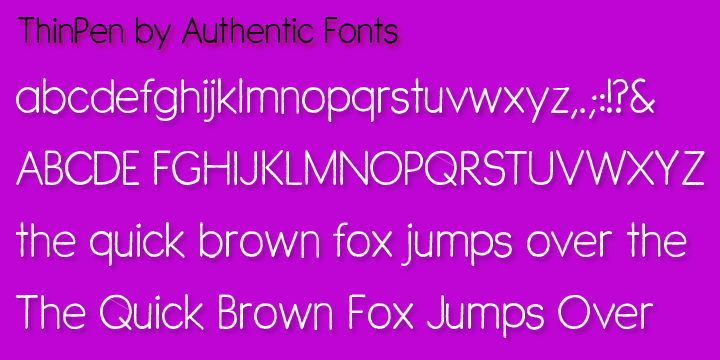
ThinPen Font is perfect for minimalist branding, elegant handwritten notes, delicate stationery designs, sophisticated journal layouts, refined signature logos, artistic sketching projects, intimate wedding invitations, and graceful calligraphy applications.
This font is exciting because it captures the delicate precision of fine pen strokes with graceful minimalism and artistic sophistication. ThinPen Font features ultra-thin letterforms with elegant line weight that evoke the intimacy of personal handwriting, making it ideal for projects that require subtle refinement and authentic handcrafted appeal.
The ThinPen Font family includes regular, italic, condensed, and ultra-light variants, along with delicate alternates and flowing ligatures that enhance its refined character. Each weight maintains the font's graceful aesthetic while providing different levels of delicate expression for various artistic and minimalist design applications.
Whether you're developing sophisticated personal brands, creating elegant editorial materials, or designing refined artistic campaigns, ThinPen Font Free Download delivers exceptional delicacy and handcrafted appeal. Its distinctive graceful style makes it an excellent choice for designers seeking to add authentic pen precision and minimalist elegance to their projects. The font's versatility extends from artistic portfolios to intimate correspondence design, ensuring consistent performance across all refined applications. With its meticulously crafted letterforms and pen-like proportions, this typeface provides professional results that convey personal touch and establish sophisticated brand presence with its unmistakable handwritten character and delicate artistic refinement.